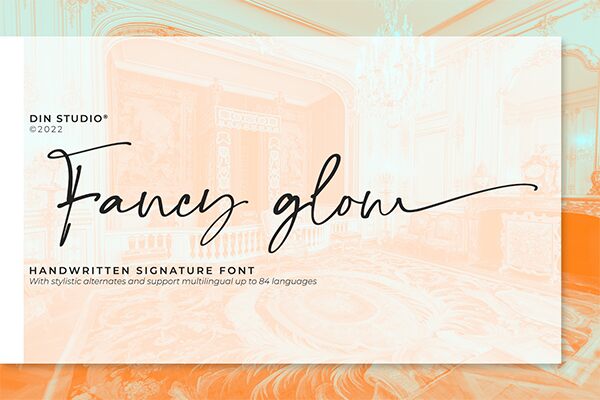
Get ready to elevate your design project with Fancy Glow, a stunning handwritten font by Din Studio. With its sophisticated and fancy style, this extra-light font will add a touch of elegance to any text. The script-like characters resemble actual handwriting and convey a sense of refinement that will never go out of style.
Whether you're working on a poster, logo, book cover, branding, heading, printed product, merchandise, quotes or social media campaign, Fancy Glow is perfect for all your design needs.
Explore the font previews to discover the fascinating features that will maximize your creativity and make your project shine.